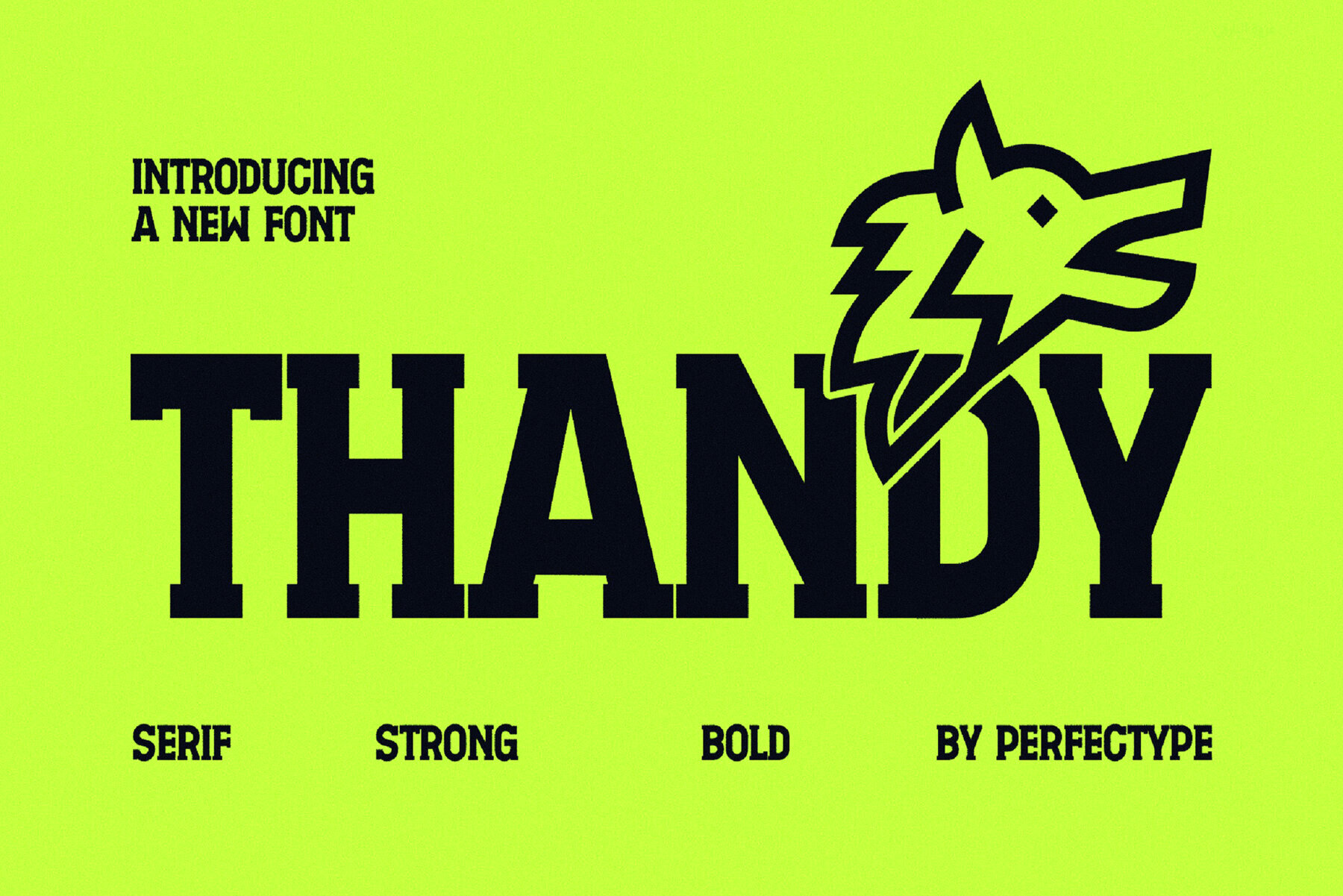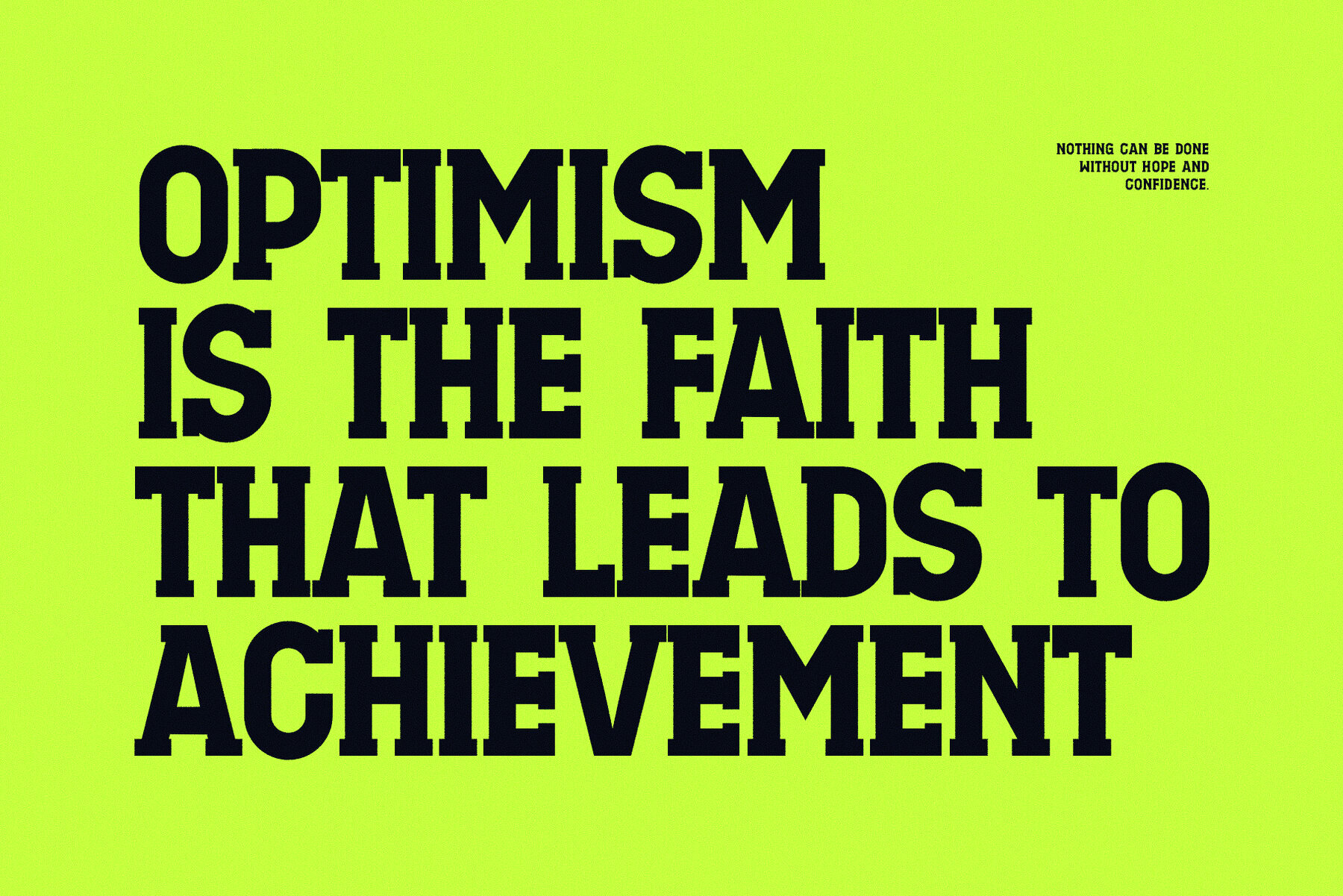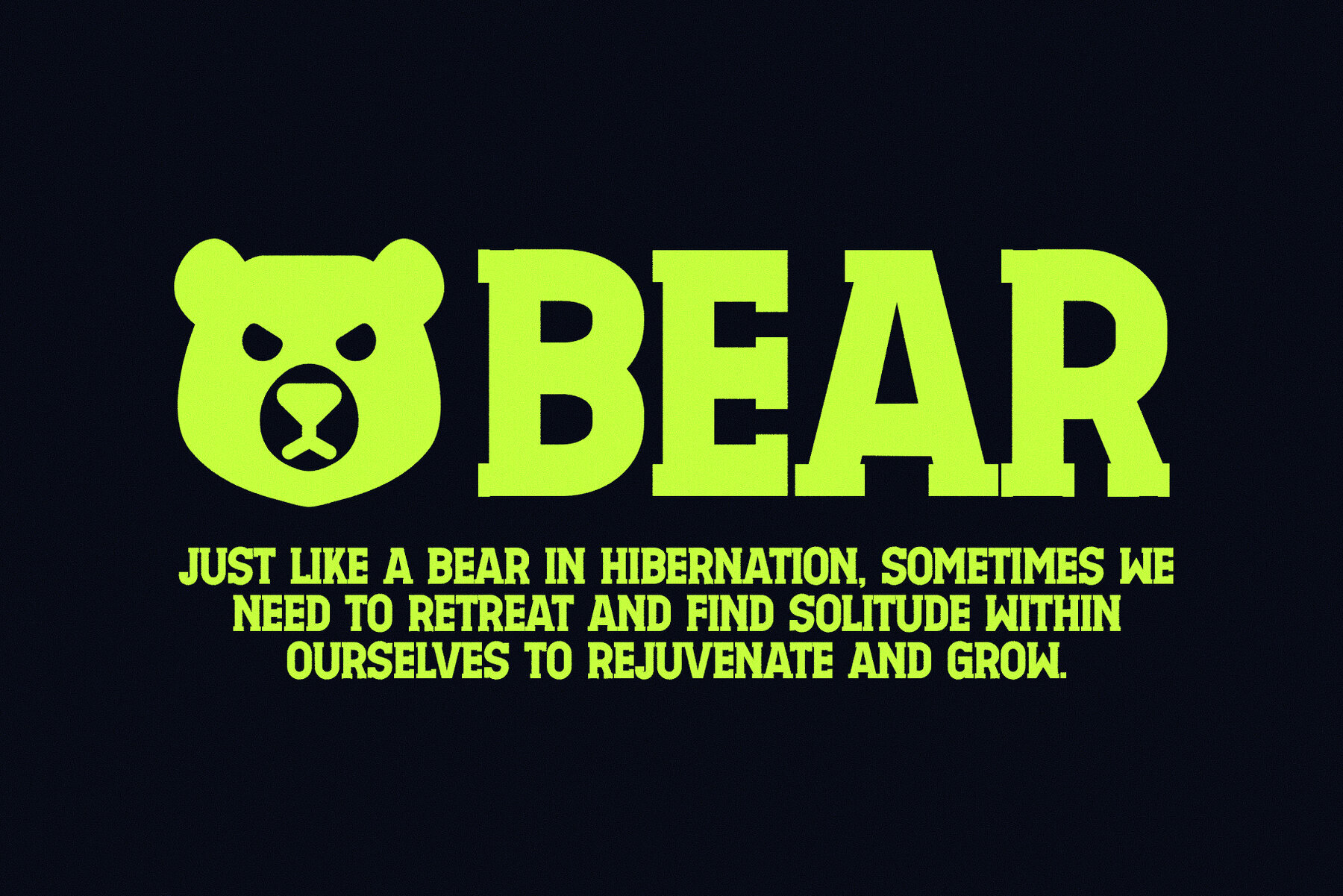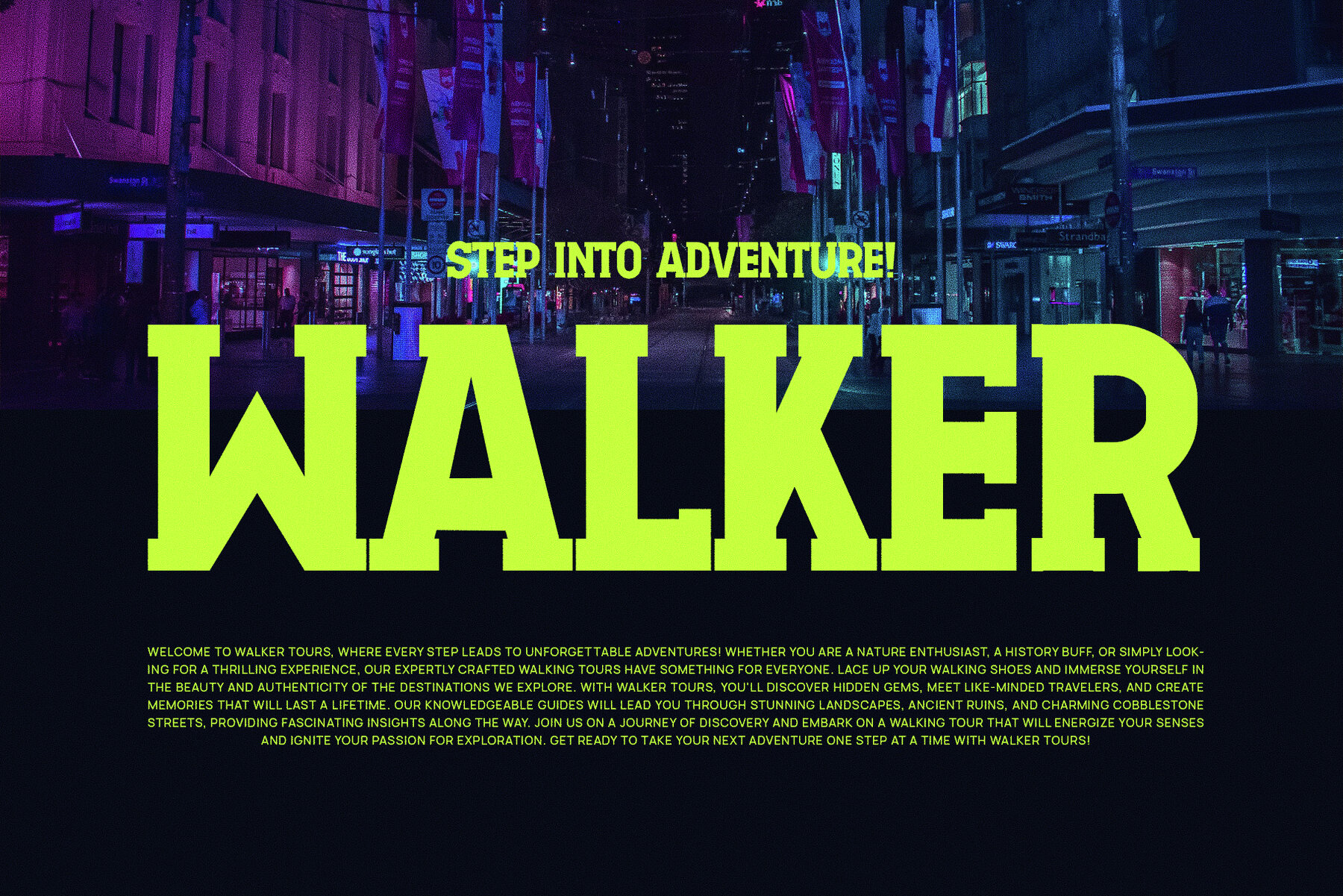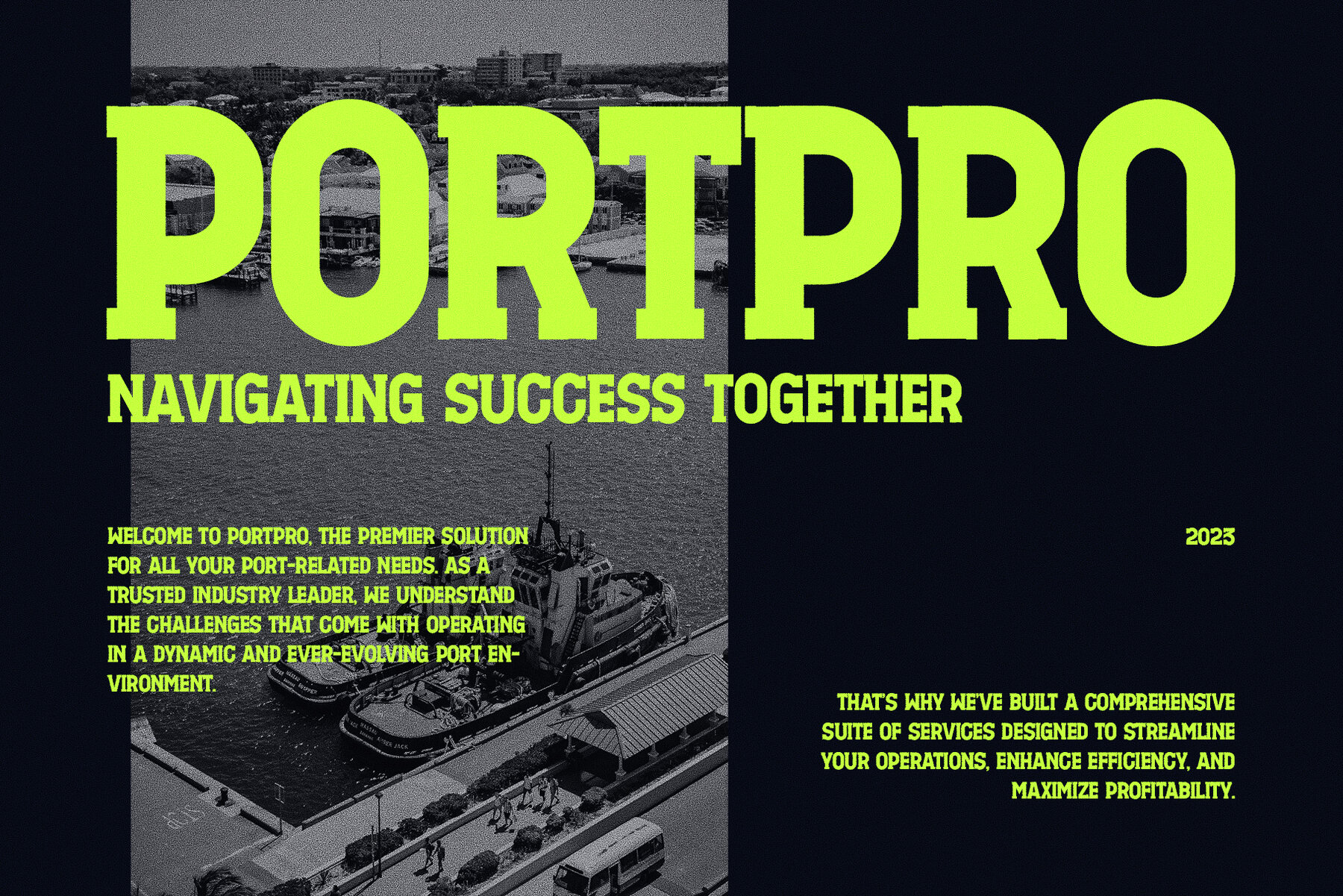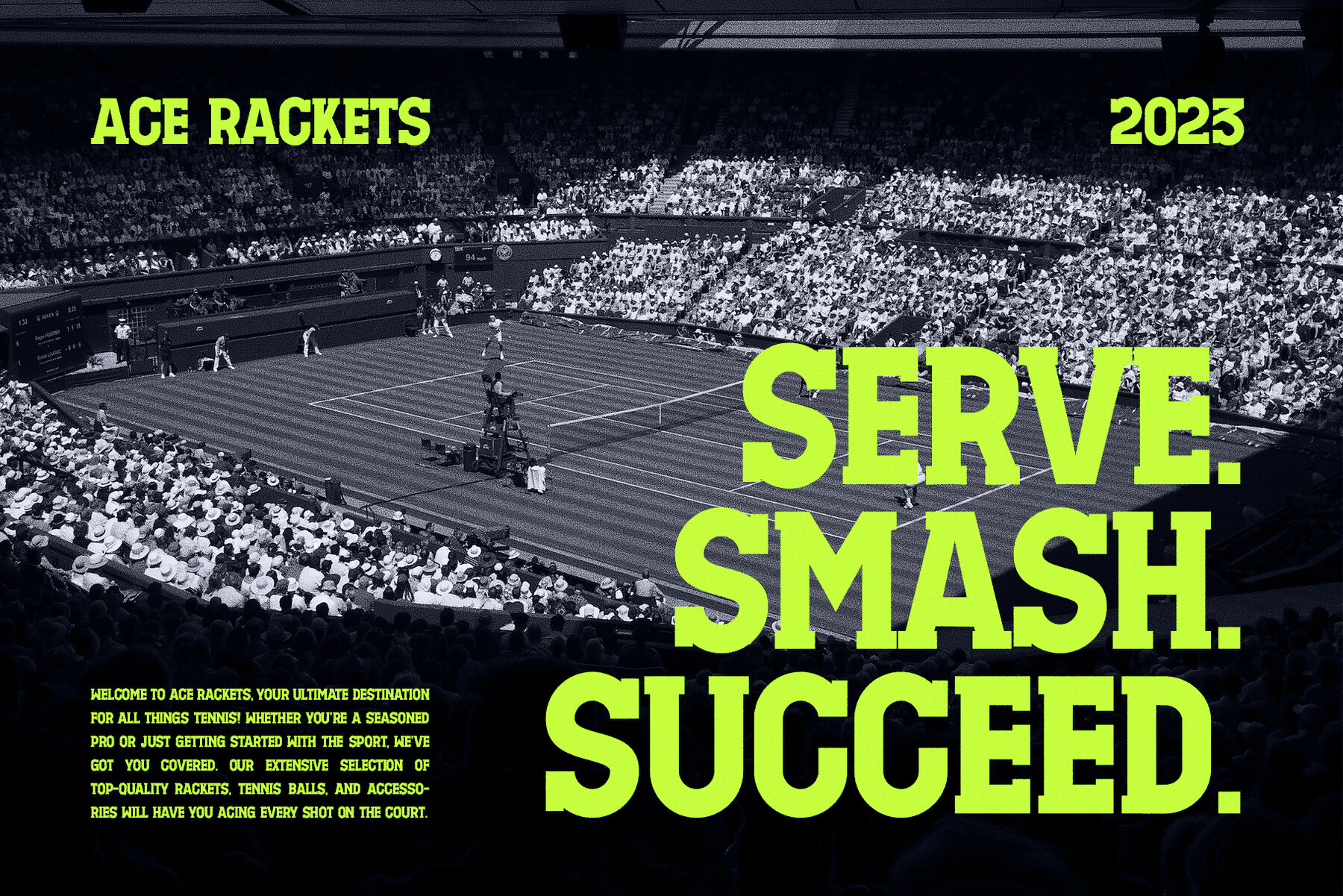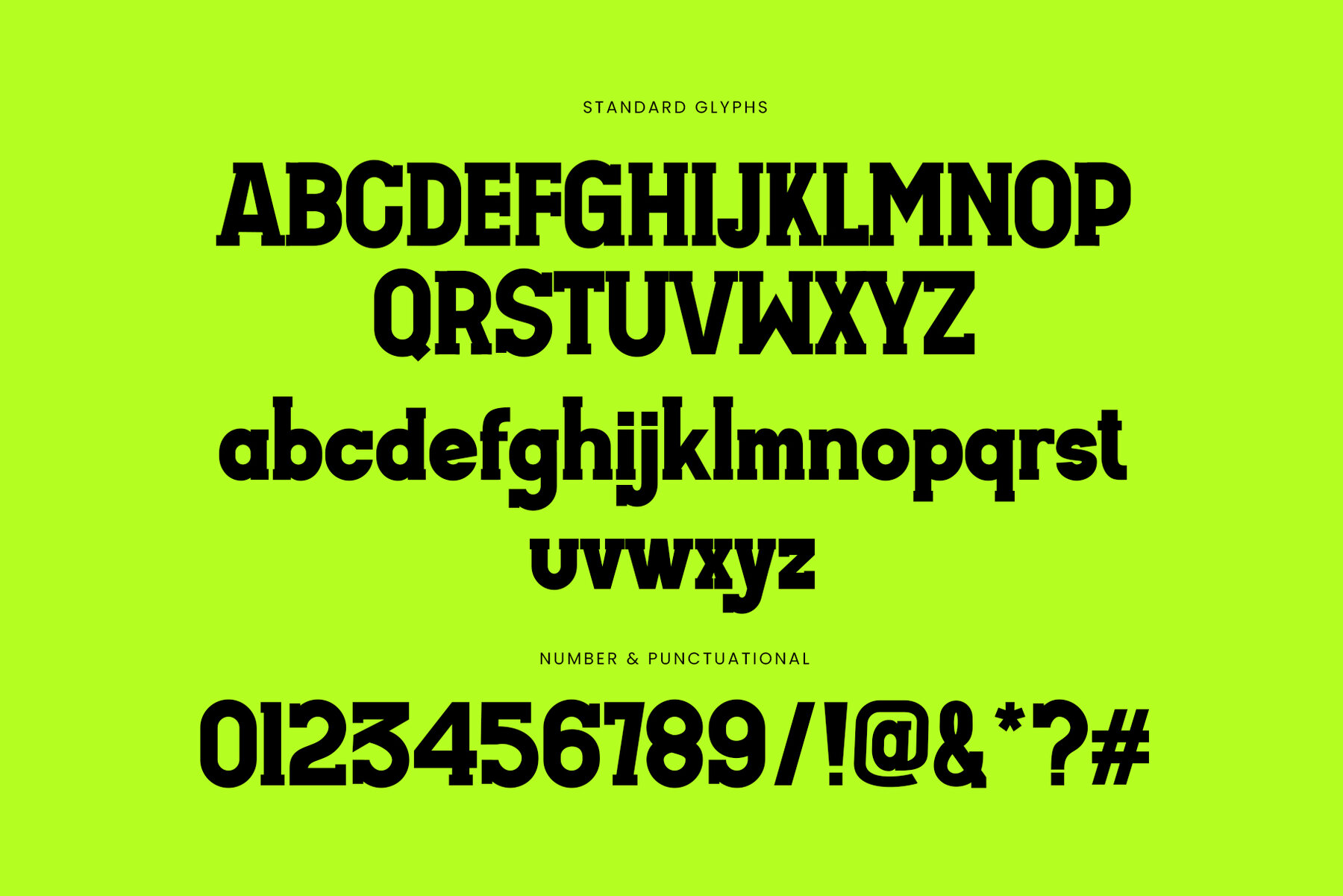
Thandy Font
Thandy Regular
Prisma is a modern Slab Serif font with a blend of classic and contemporary design elements. Ideal for a wide range of projects including branding, logos, magazines, layouts, t-shirts, advertisements, Canva, music covers, concerts, and more. This font provides character standards, numbers, punctuation, and accented characters for Western European languages. Compatibility with PC and Mac ensures versatile use. For best results, use with Adobe Illustrator or Adobe Photoshop.